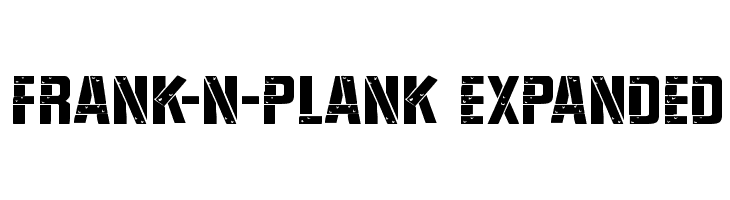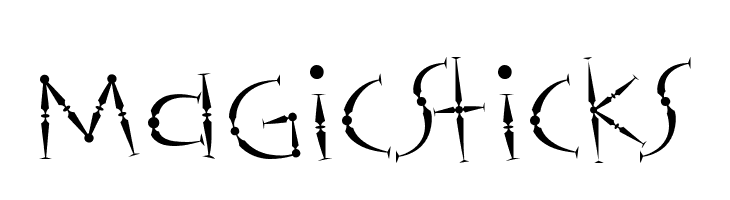
A bold, industrial font with a mechanical, rivet-like design.
A bold, geometric font with sharp angles and a blocky appearance.
A futuristic, bold font with a gradient effect created by horizontal lines.
A bold, graffiti-inspired font with a distinctive dripping effect.
A thin, elegant italic font with a modern and sophisticated style.
A bold, chaotic, and abstract decorative font with unique, fragmented letterforms.
A playful, dotted decorative font with bold outlines and whimsical style.
A playful, bold font with irregular, dynamic strokes.
A bold, handwritten font with a playful, italicized style.